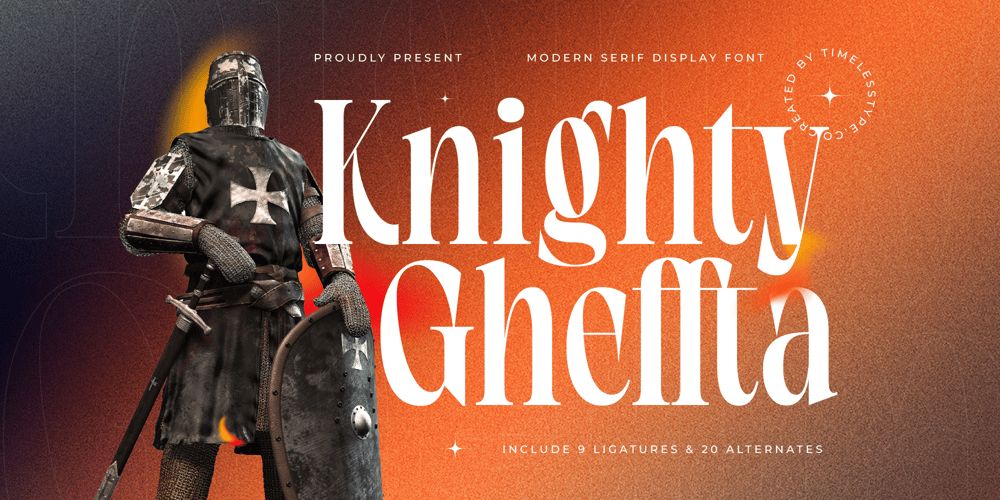
Knighty Gheffta Font Family was designed by Heru Utama Putra and published by Timelesstype Studio. Knighty Gheffta contains 2 styles and family package options. Knighty Gheffta – Modern Display Serif Font , from Timelesstype , Suitable for any projects such as: logos, branding projects, homeware designs, product packaging, mugs, quotes, posters, shopping bags, t-shirts, book covers, name card, invitation cards, greeting cards, label, photography, watermark, special events, and all your other luxury and beautiful projects that need a Luxury Serif taste.